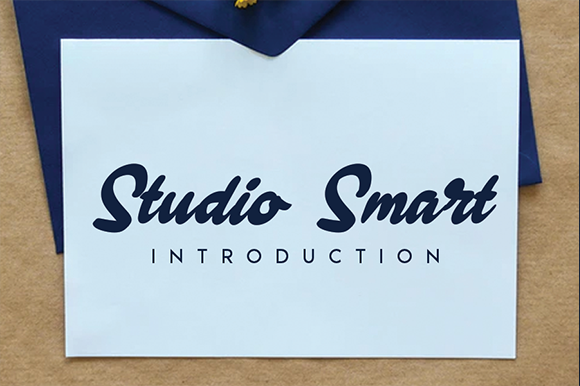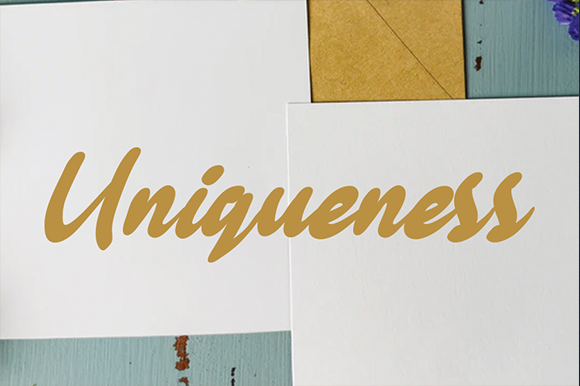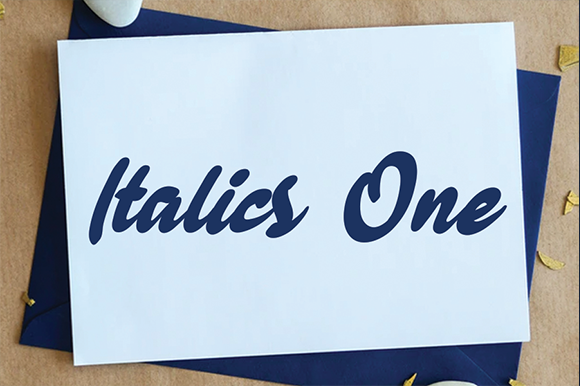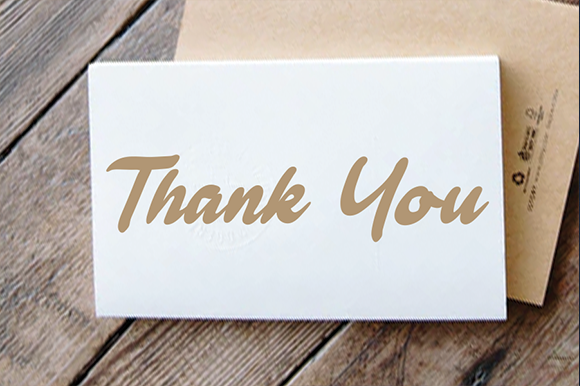
Bellgia Font
About Bellgia Font
Bellgia is an elegant handwritten font, carefully handcrafted to become a true favorite. Its casual charm makes it appear wonderfully down-to-earth, readable and, ultimately, incredibly versatile. This font will look outstanding in any context, whether it’s being used on busy backgrounds or as a standalone headline!